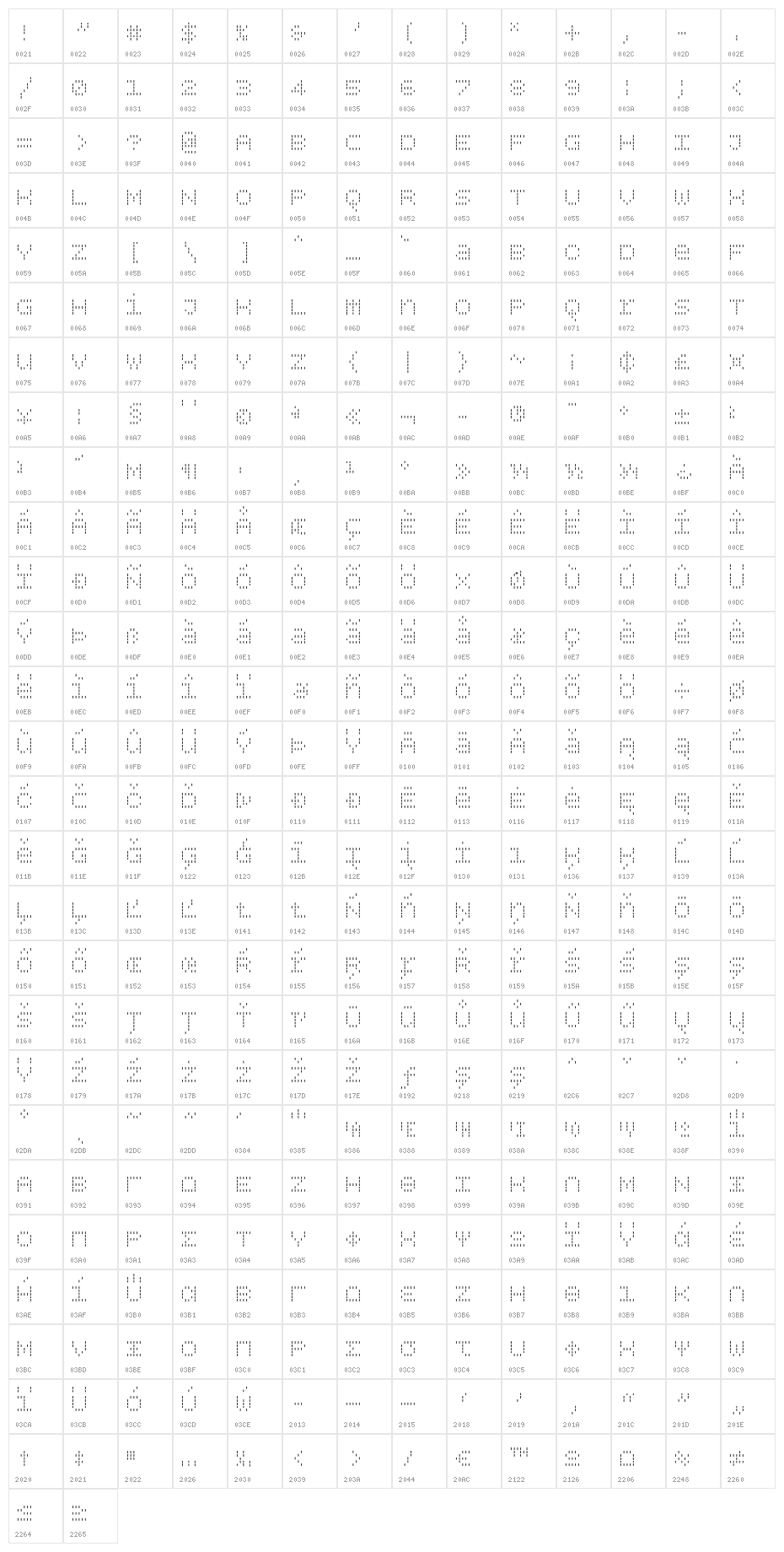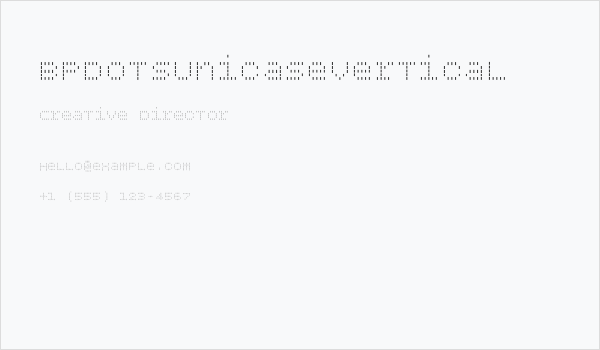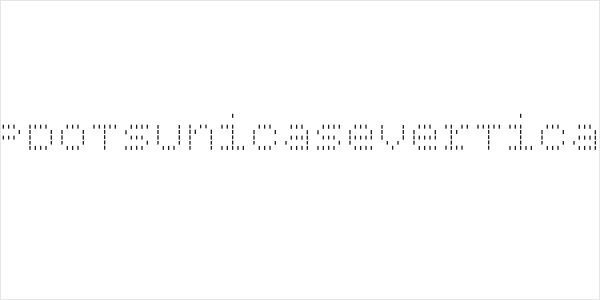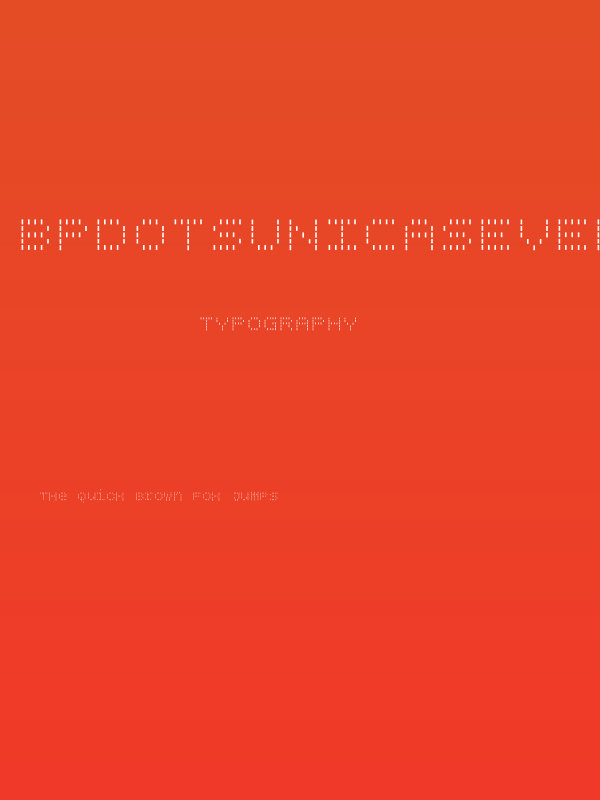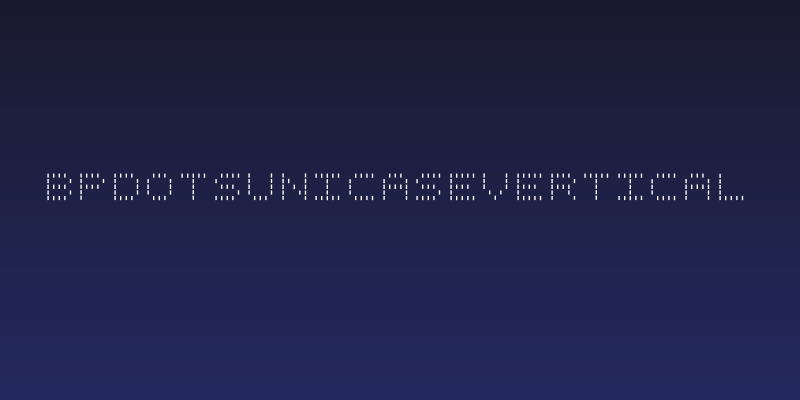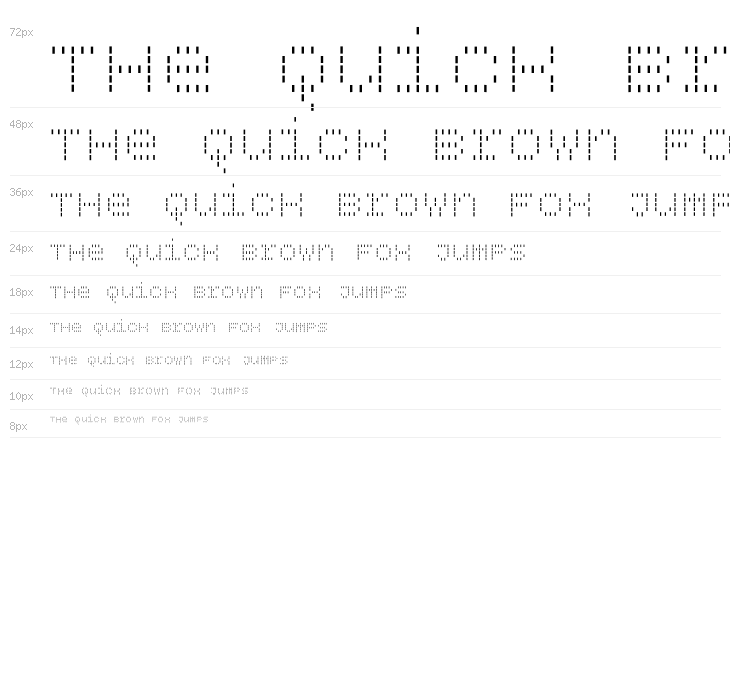
BPdotsUnicaseVertical Font
BPdotsUnicaseVertical Description
This font features a unique dot matrix style, creating characters through a series of evenly spaced dots. The design is highly geometric and structured, giving it a digital or technological feel. Each letter and number is formed with precision, maintaining uniformity across the character set. The font includes both uppercase and lowercase letters, numerals, and a variety of special characters. Its distinct appearance makes it stand out, ideal for projects that require a modern, digital aesthetic.
| Use Case | Logos, Headlines, Digital displays |
| Proposed Projects | Ideal for digital displays, tech-themed designs, modern art projects, and creative branding. |